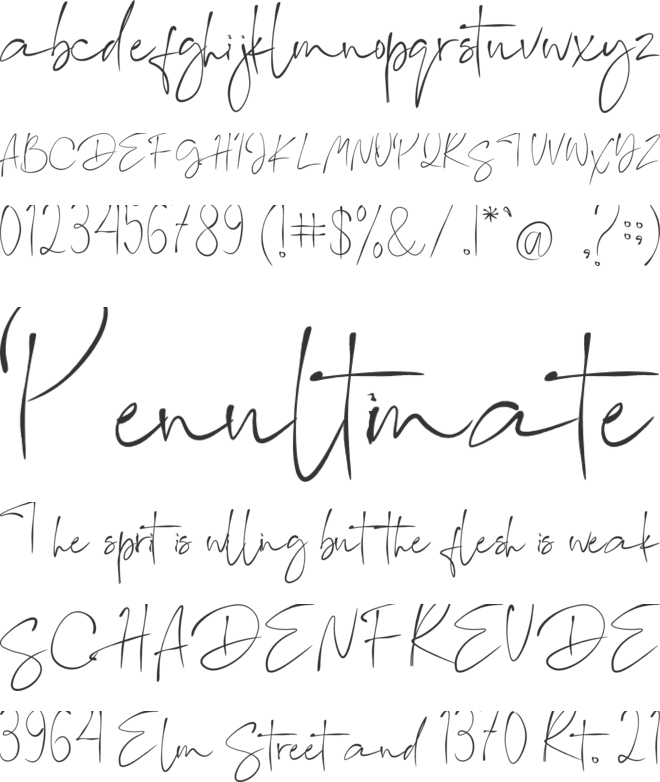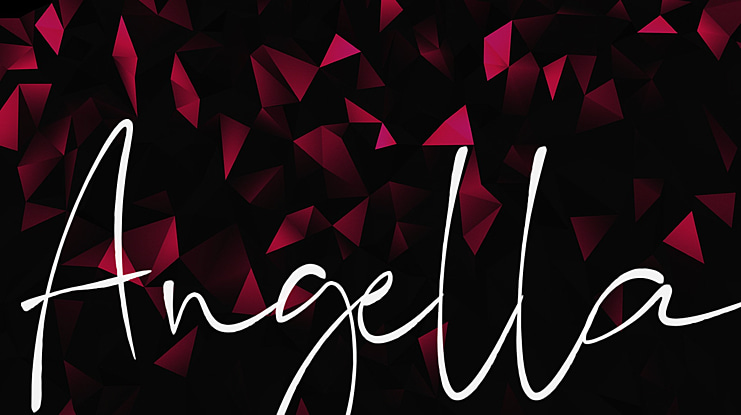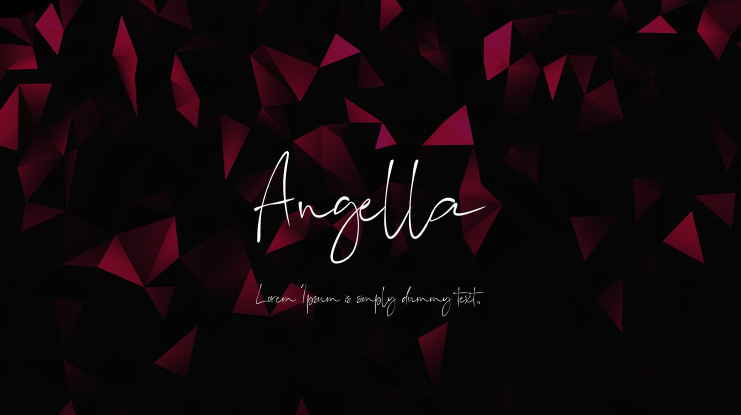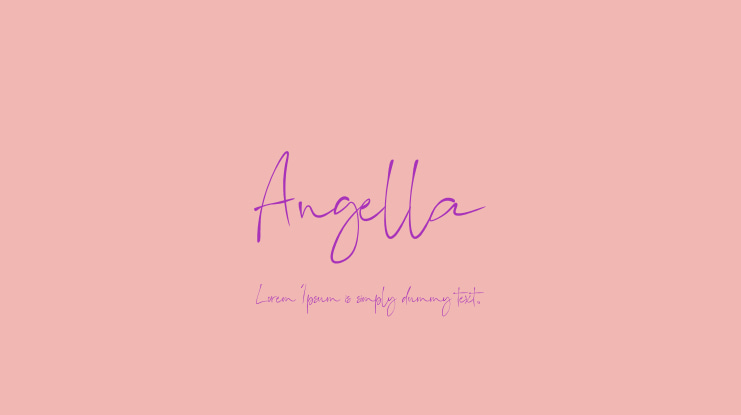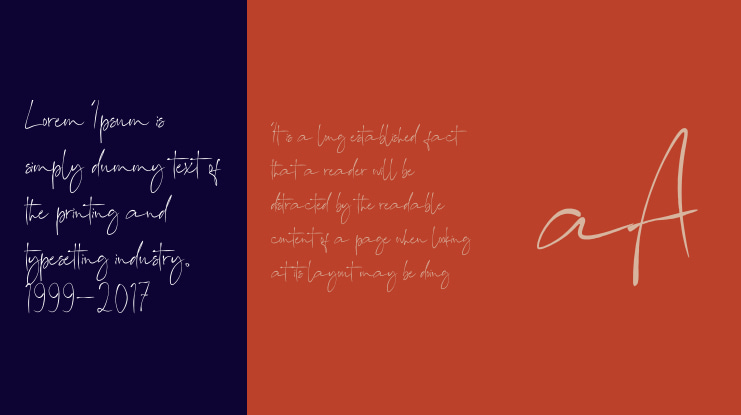
Angella Font
Angella is a thin and elegant script font. It has a classy, elegant and modern look that can be used for logos, branding, invitations, stationery, wedding designs, social media posts, and much more!